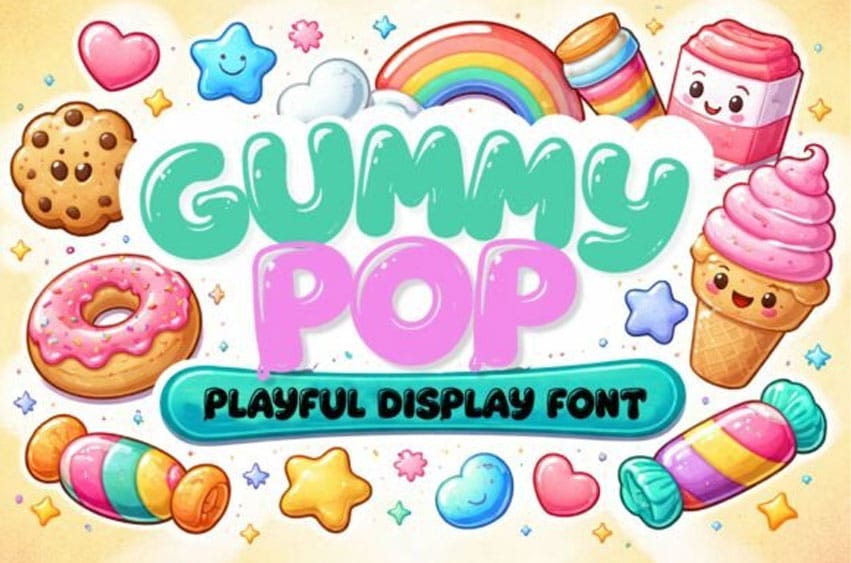
Gummy Pop Font is a bold, playful display font inspired by soft jelly shapes and bubbly forms. With its rounded edges and smooth, puffy structure, this typeface delivers a fun, friendly, and eye-catching look perfect for modern creative designs.
Ideal for food branding, kids products, packaging, social media, and cheerful visual projects that need a sweet and energetic personality.